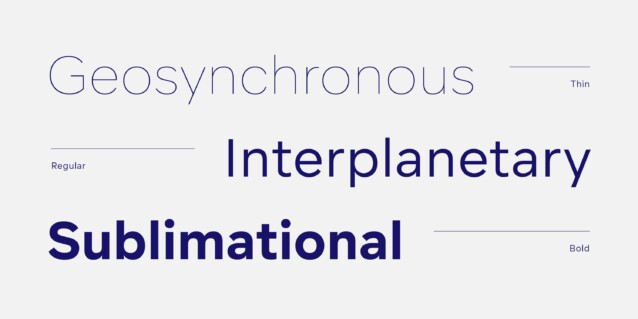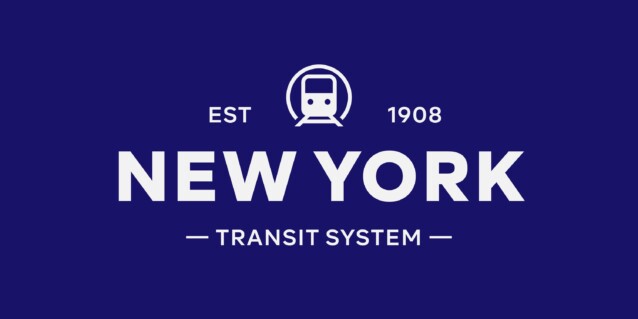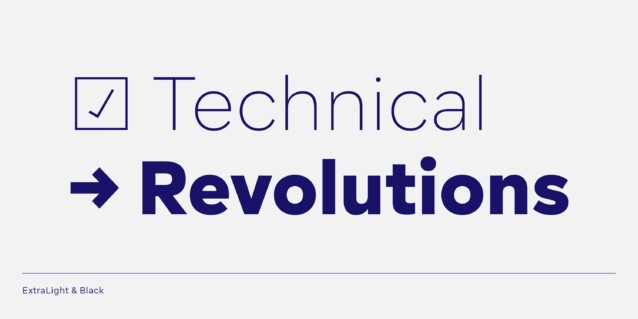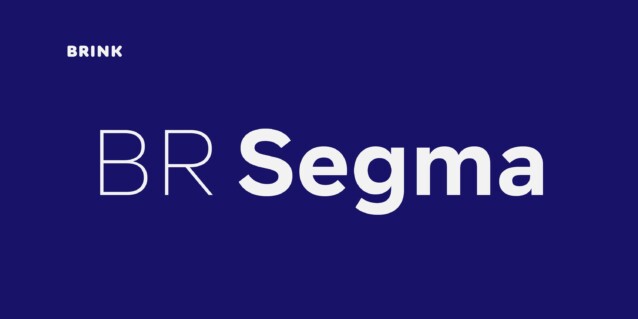
BR Segma Font Family
BR Segma Font is a stunning typeface that belongs to the geometric sans-serif category, boasting a versatile range of 16 distinct styles. Geometric precision and modern utility create a contemporary modern aesthetic, while open apertures, and low contrast strokes provide a comfortable reading experience. Segma builds upon geometric traditions but remains firmly in the present.
BR Segma provides advanced typographic support with features such as case sensitive forms, fractions, slashed zeros and multiple figure sets.